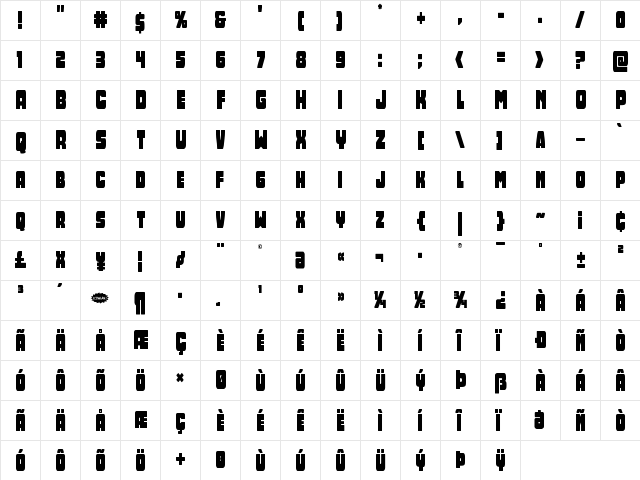
Opus Mundi Condensed Condensed
Design Context for Opus Mundi Condensed Typeface
Opus Mundi Condensed offers clean, dependable letterforms without strong stylistic allegiance, making it a practical choice for designers who need flexibility. Its narrow stance lets it pack a punch even in space-constrained designs.